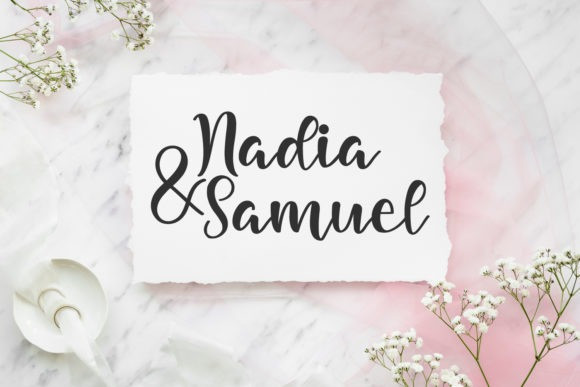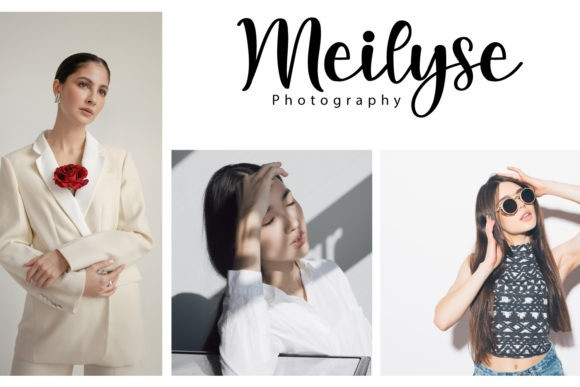
Kids Rock Script Font
Kids Rock is a relaxed, cursive and light script font. Whatever the topic, this font will be a wonderful asset to your font library, as it has the potential to enhance any creation.